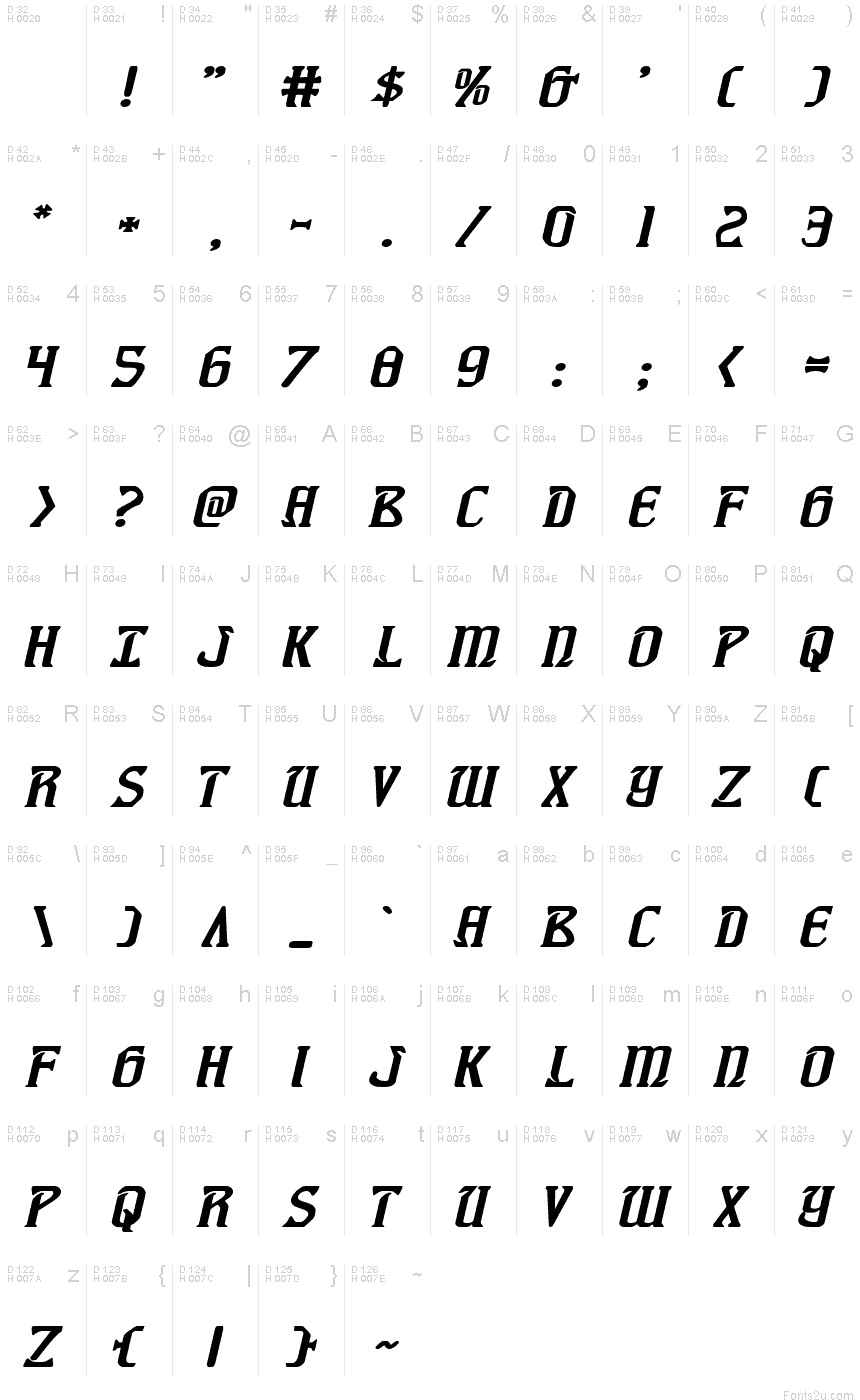
Fiddler's Cove Expanded Italic by Iconian Fonts is a free old-school display font with a theatrical, blackletter-tinged silhouette. Broad slanted capitals combine sweeping curves, sharp wedge serifs, and dramatic thick-thin strokes, producing lettering that feels ornate yet forceful.
It is strongest on posters for roots music, saloons, or historical entertainment, where the exaggerated forms can set the period mood immediately. The same carved-sign quality suits beverage packaging and venue branding with a vintage theme. Decorative flourishes can echo scrollwork or engraved illustrations, making the lettering part of the artwork.
Fiddler's Cove Expanded Italic